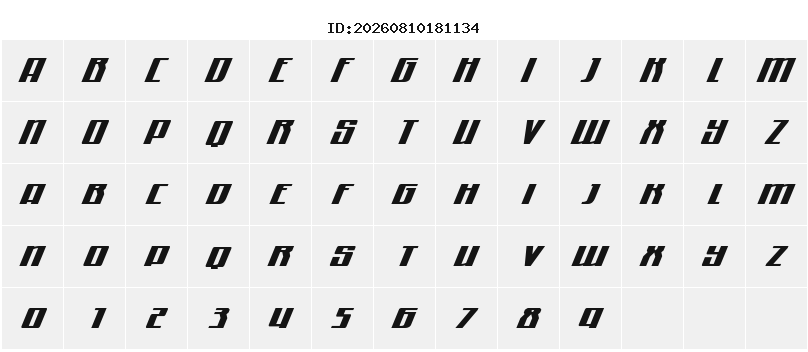
Quantum of Malice Expanded Italic Preview
• Font Name: Quantum of Malice Expanded Italic
• Font Style: Expanded Italic
• Full Font Name: Quantum of Malice Expanded Italic
About Quantum of Malice Expanded Italic.ttf
Quantum of Malice Expanded Italic.ttf is a modern, elegant sans-serif font designed for ultimate readability and visual harmony. Perfect for branding, headlines, web design, and print materials.